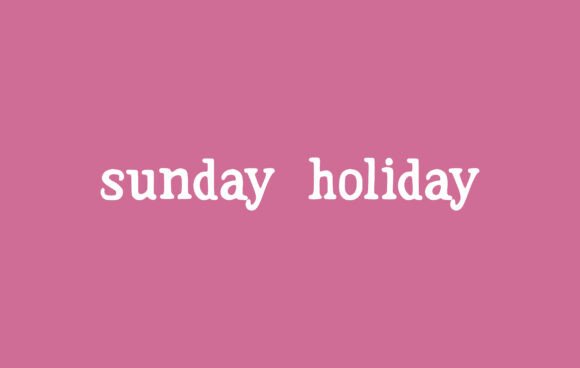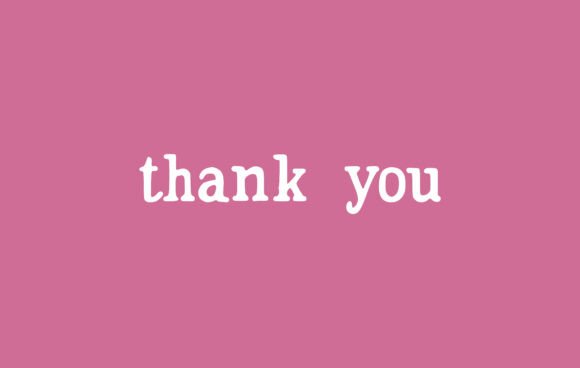
The Perfect Twist for Your Creative Masterpiece
As a designer, there’s nothing quite like the rush of inspiration that comes from seeing a project take shape. The blank page stares back at you, begging to be filled with creativity and imagination. And then, it hits you – the perfect font that brings your vision to life. For many designers, finding that elusive ‘wow’ factor can be a challenge, but what if I told you that there’s a font that could change the game?
Enter the Dynamotwist Font, a beautifully crafted handwritten font with a romantic touch that’s sure to elevate your designs to new heights. Whether you’re working on a magazine headline, social media campaign, or wedding invitation, this font is the perfect addition to your toolkit. With its legibility and versatility, the Dynamotwist Font is an invaluable asset for any designer looking to take their creative ideas to the next level.
Dynamotwist Font Key Features
- Font Family: Dynamotwist Font is a unique, hand-drawn font designed for dynamic and expressive typography.
- Character Set: Includes a comprehensive set of characters, including uppercase and lowercase letters, numbers, punctuation, and special characters.
- Unique Characteristics: Features a dynamic twist on traditional typography, with irregular shapes and expressive lines that add a touch of personality to any design.
Dynamotwist Font Review
Overall, I was really excited to dive into the Dynamotwist Font, but unfortunately, it didn’t quite live up to my expectations. ✨ Here are some things that work well:
- Unique and edgy design aesthetic that’s perfect for modern brands and projects.
- Smooth and readable font at various sizes, making it suitable for digital and print applications.
- Good legibility, even at small font sizes.
However, there are some limitations that prevent me from giving it a glowing review ⚠️:
- Limited language support, which might be a concern for multilingual projects.
- No bold or italic font styles, which can be a drawback for headings and emphasis.
- Slightly inconsistent spacing and kerning, which can be distracting at times.
Overall, the Dynamotwist Font has some great qualities, but its limitations hold it back from being a top-tier font. If you’re looking for a unique and modern font for your project, it’s worth considering, but be sure to test it thoroughly and consider its limitations.
Tips for Getting the Most Out of the Dynamotwist Font
Use the Dynamotwist font for bold, eye-catching headings and titles. It’s perfect for creating a dynamic and energetic feel in your designs. Experiment with different font sizes, colors, and styles to create a unique look.
The Dynamotwist font is ideal for:
- Headings and titles in marketing materials and advertisements.
- Displaying quotes or phrases in a bold, eye-catching way.